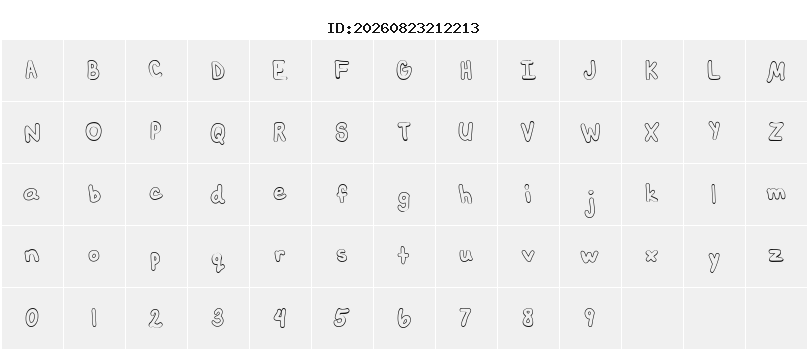
• Font Name: SaraRachelle - Outline
• Full Font Name: SaraRachelle - Outline
About SaraRachelle - Outline.ttf
SaraRachelle - Outline.ttf is a modern, elegant sans-serif font designed for ultimate readability and visual harmony. Perfect for branding, headlines, web design, and print materials.